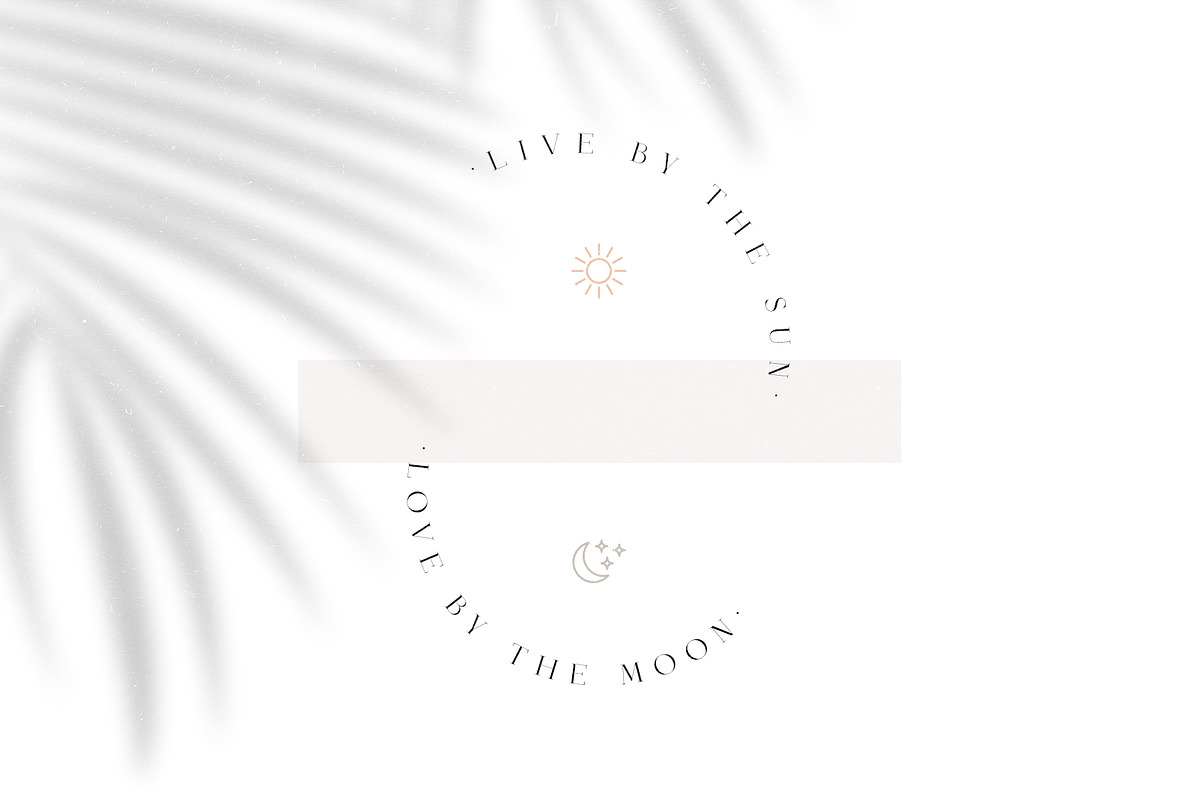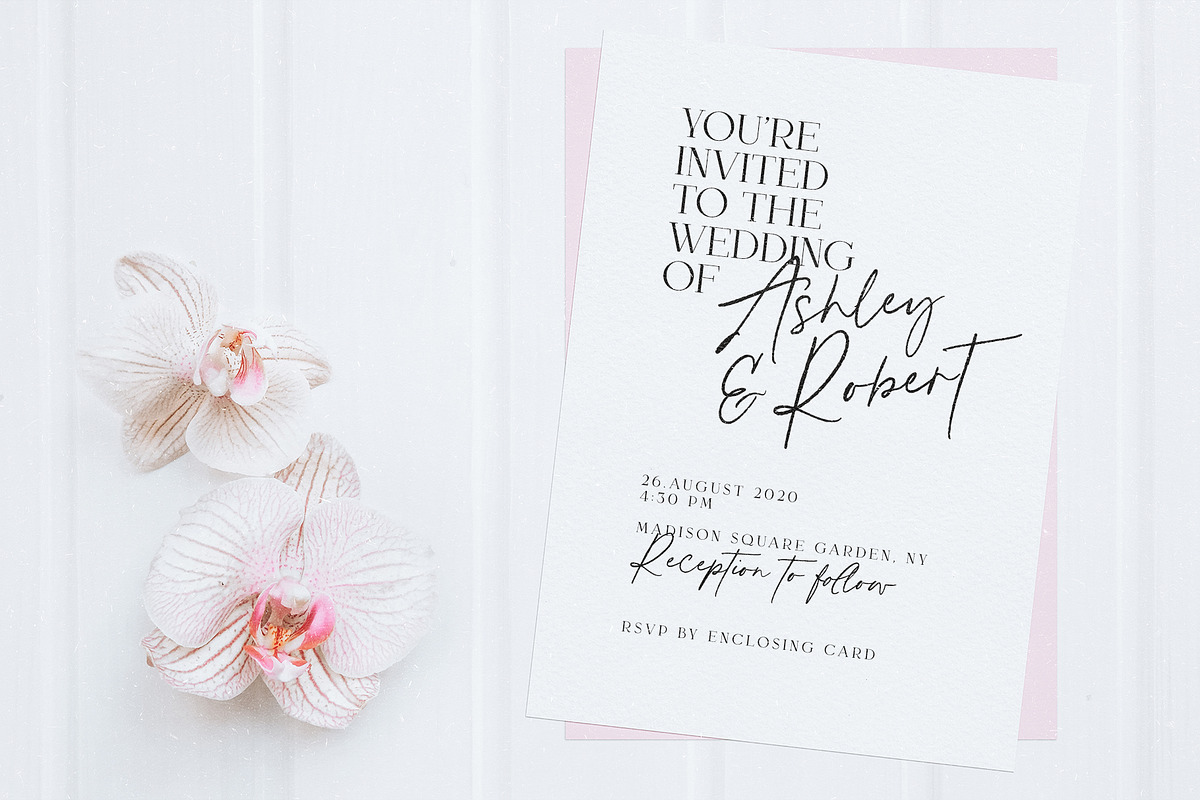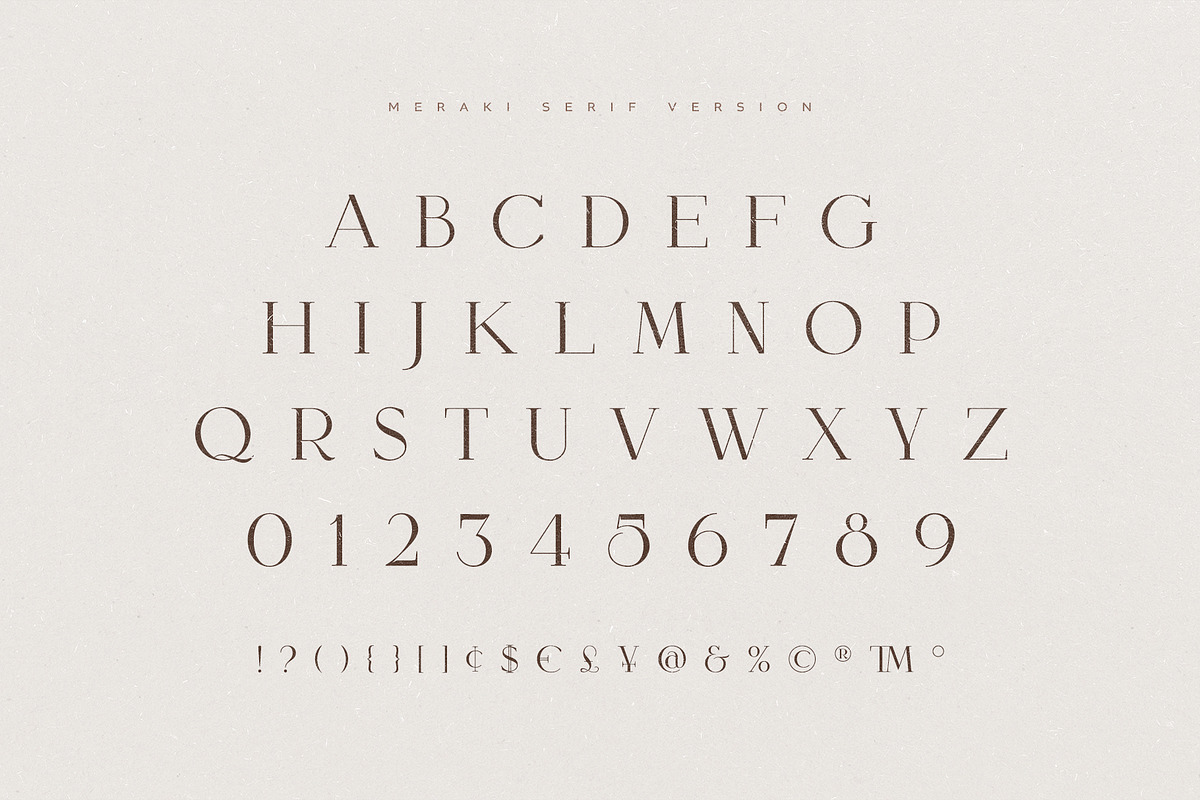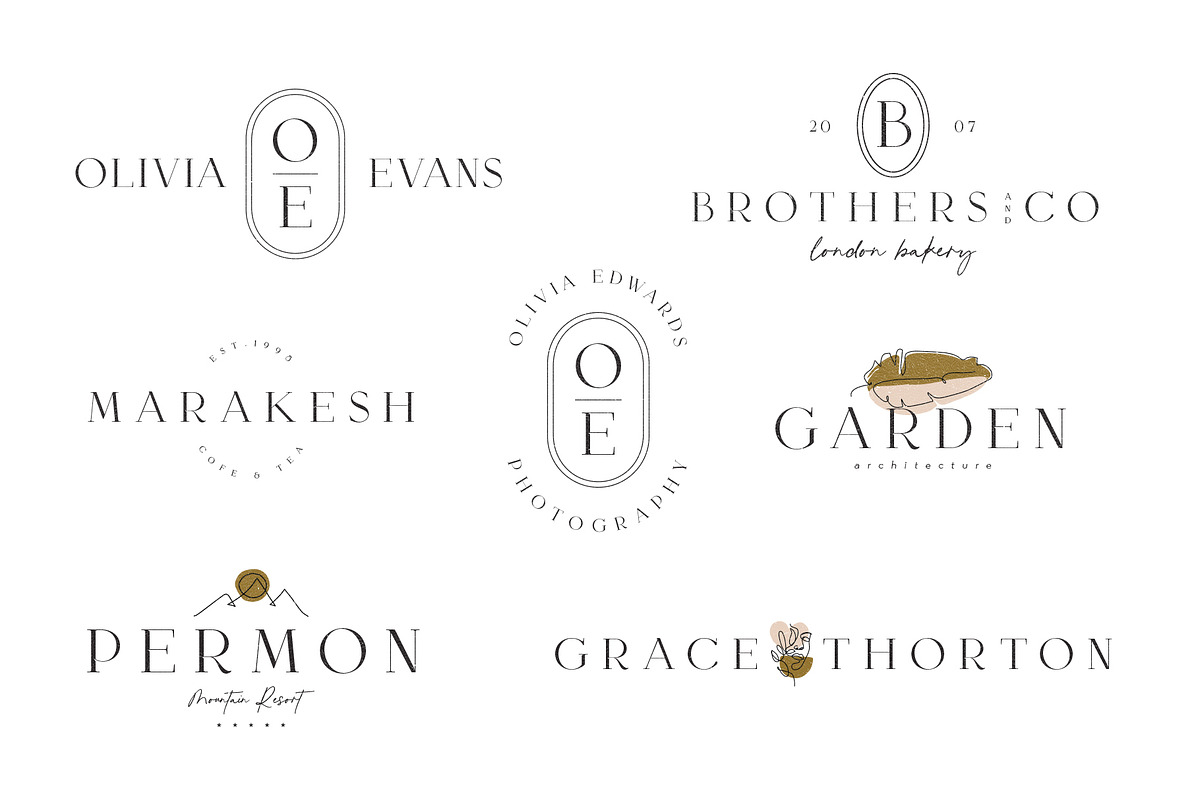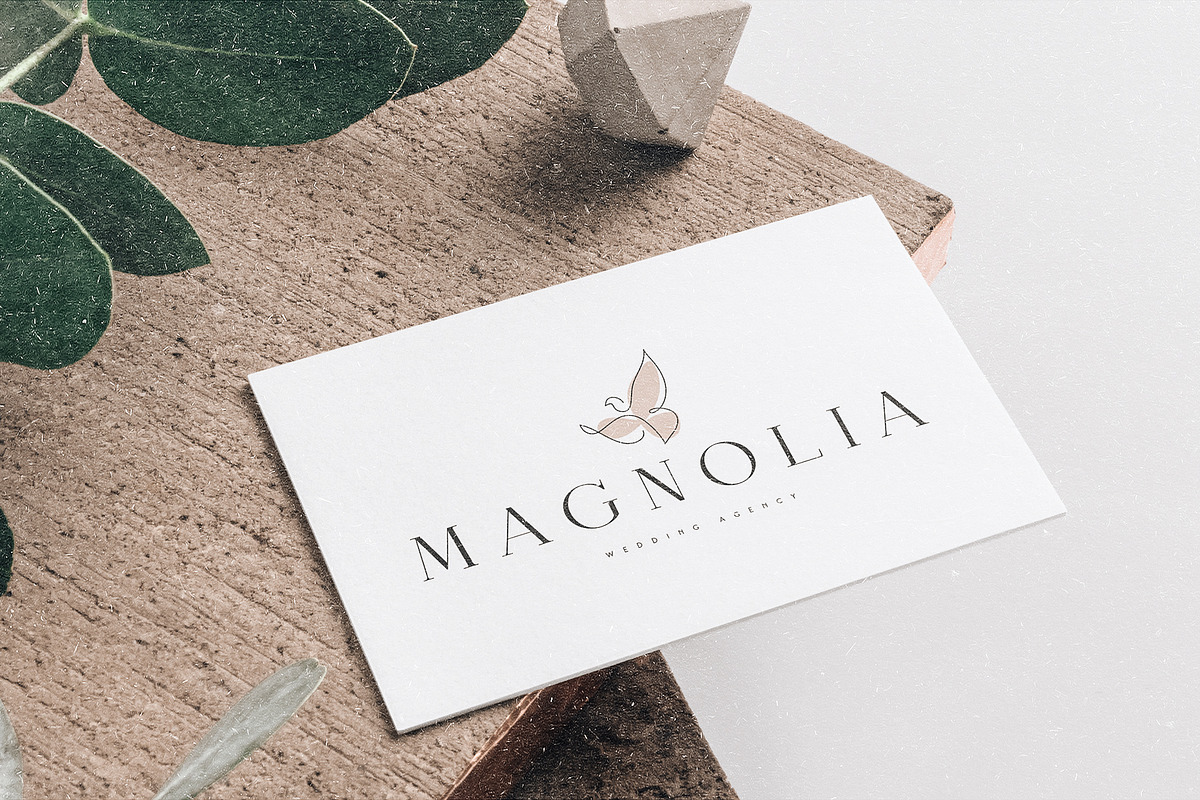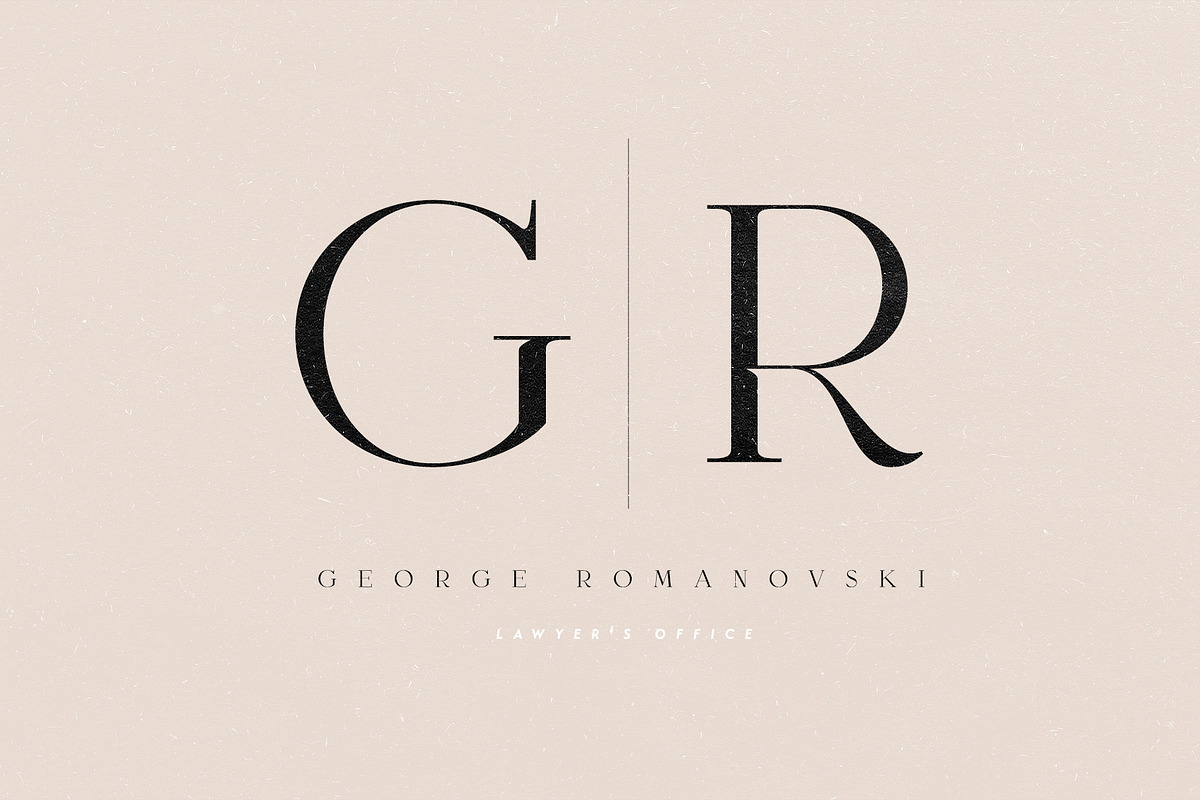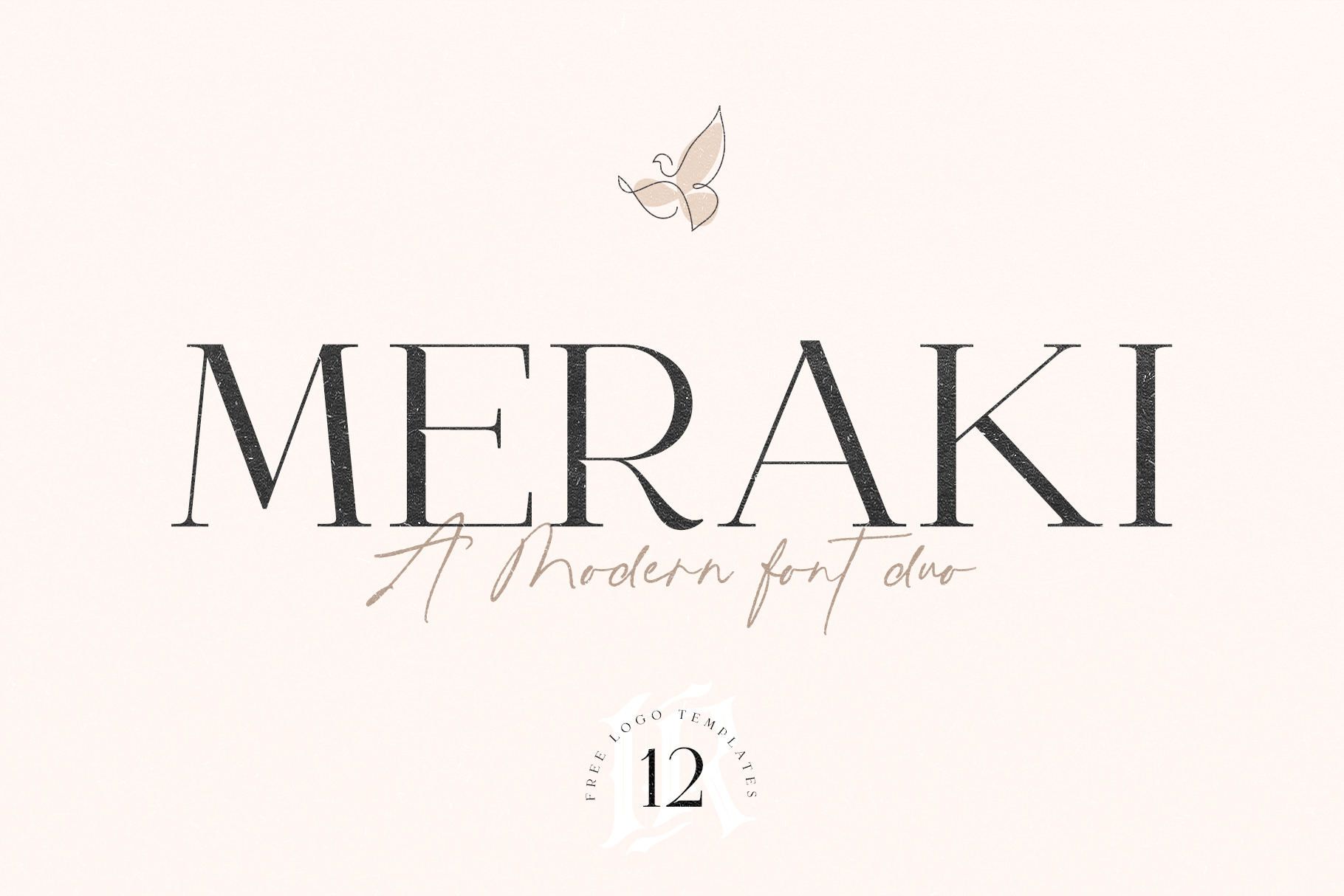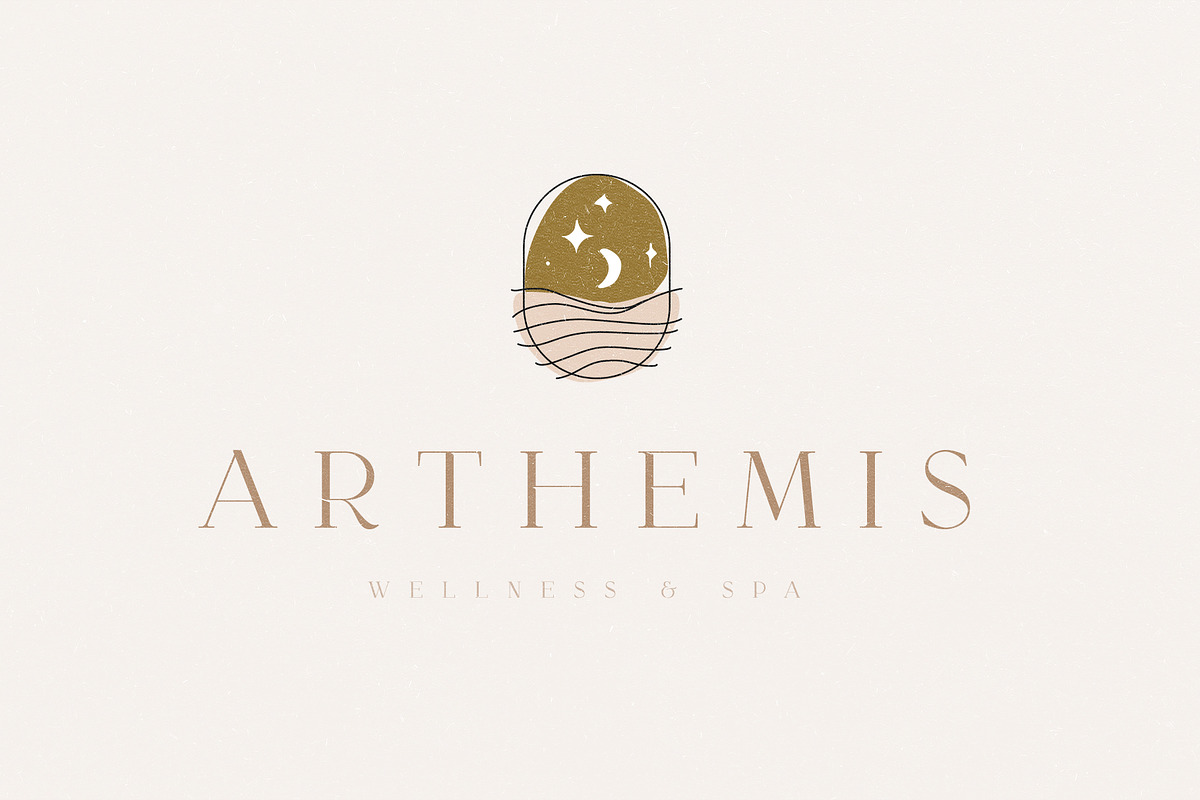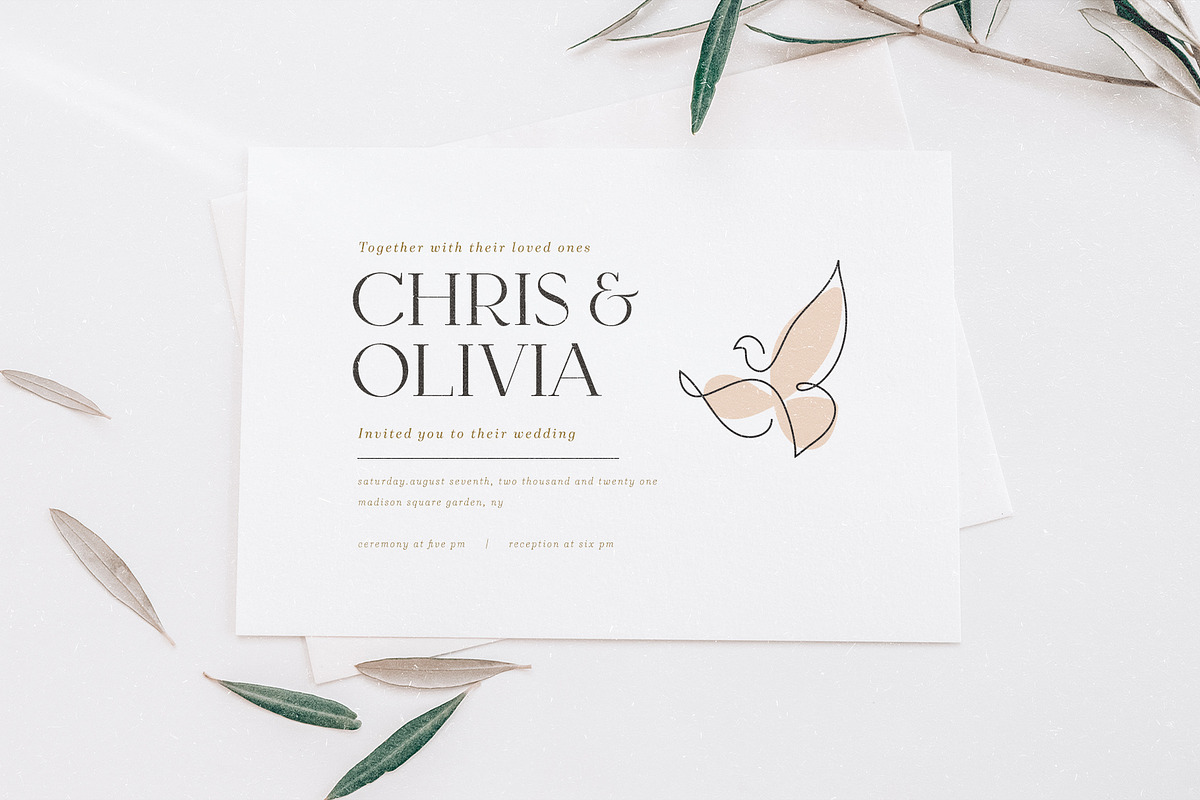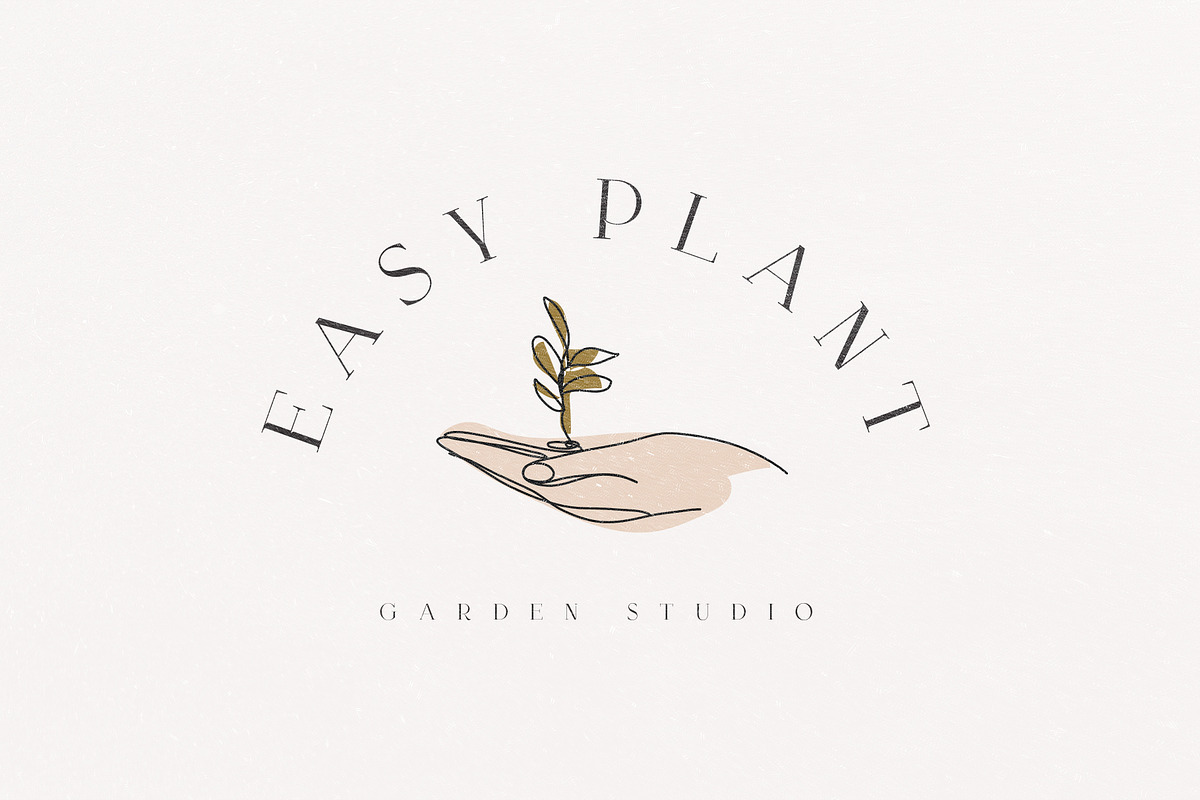
Meraki Font Duo + Logos
Meraki Font Duo is a modern serif font with handlettered script pair. These are ideal for fashion, blog website, instagram, branding, invitations, business cards, weddings and many more. Script version also includes 2 sets of alternate characters for both UPPERCASE AND LOWERCASE letters and ligatures for more natural look.